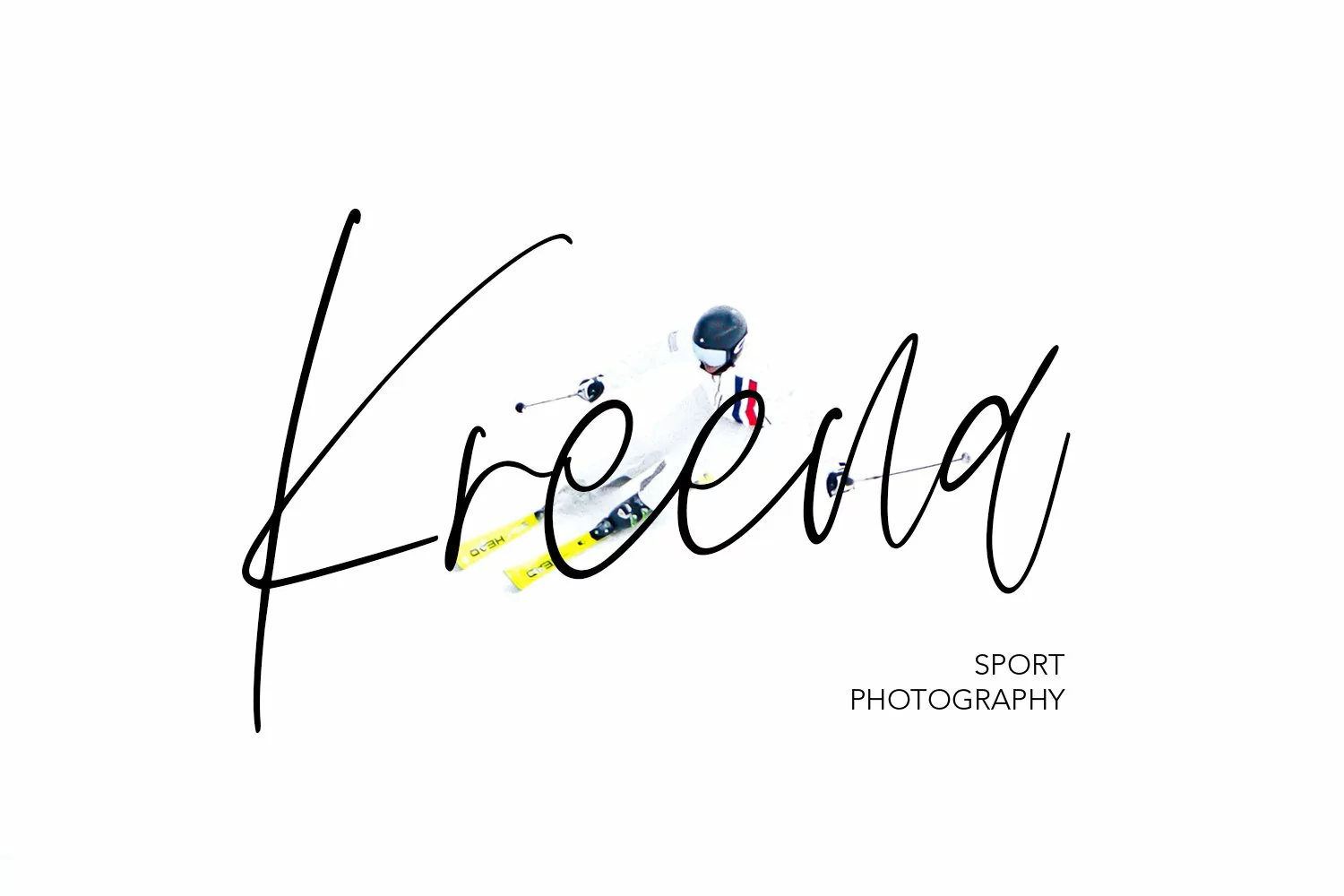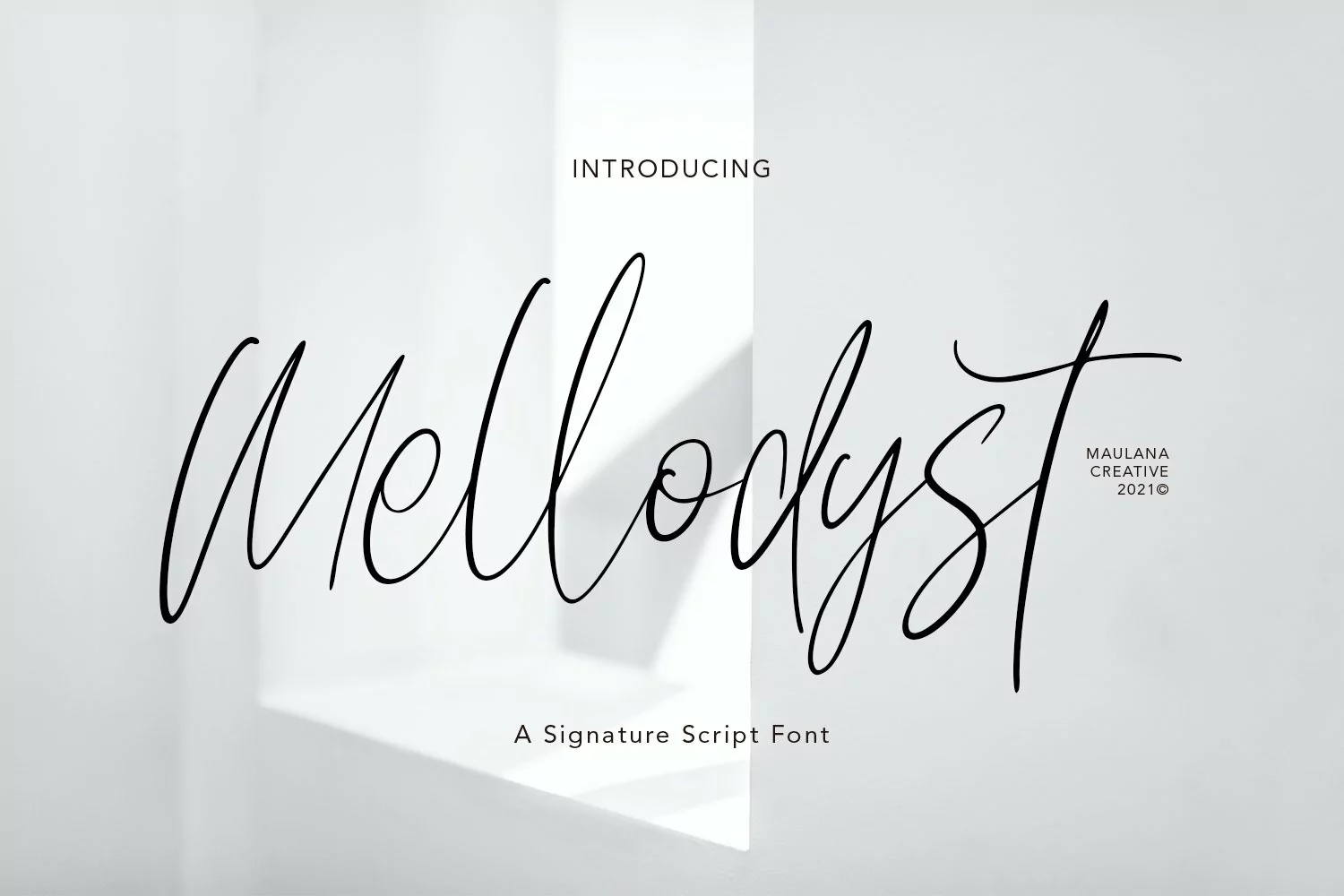
Mellodyst is a signature script font, with thin condensed stroke and fun characters. It has Opentype features of ligatures and some lowercase alternates, makes it a perfect choice for branding and digital designs. Use this font for logos, social media, websites, blogs, instagram, social media, business cards, branding, and more! Mellodyst font support multilingual more than 100+ language. and good pair for your secondary text font with sans or serif. Make a stunning work with Mellodyst signature script font.